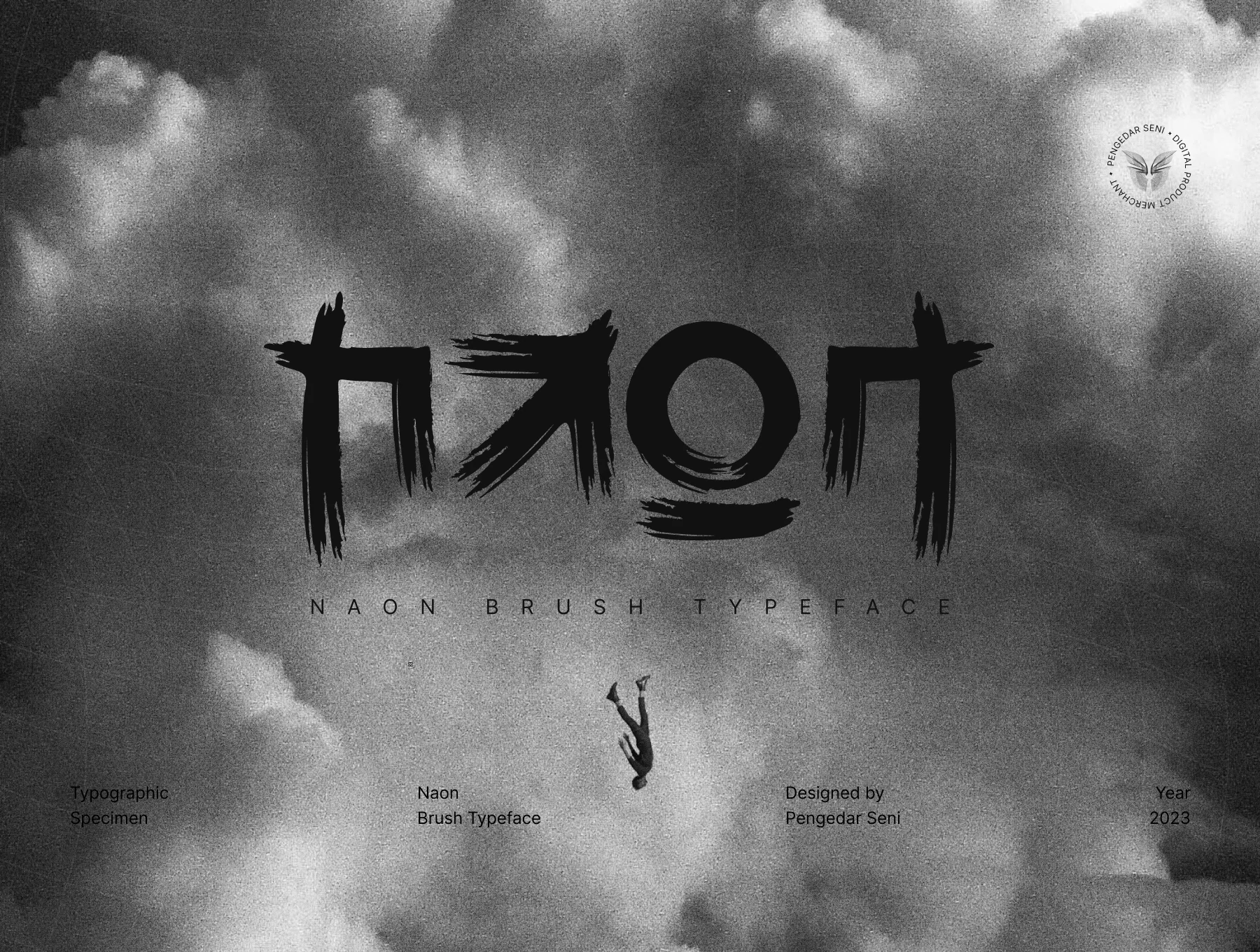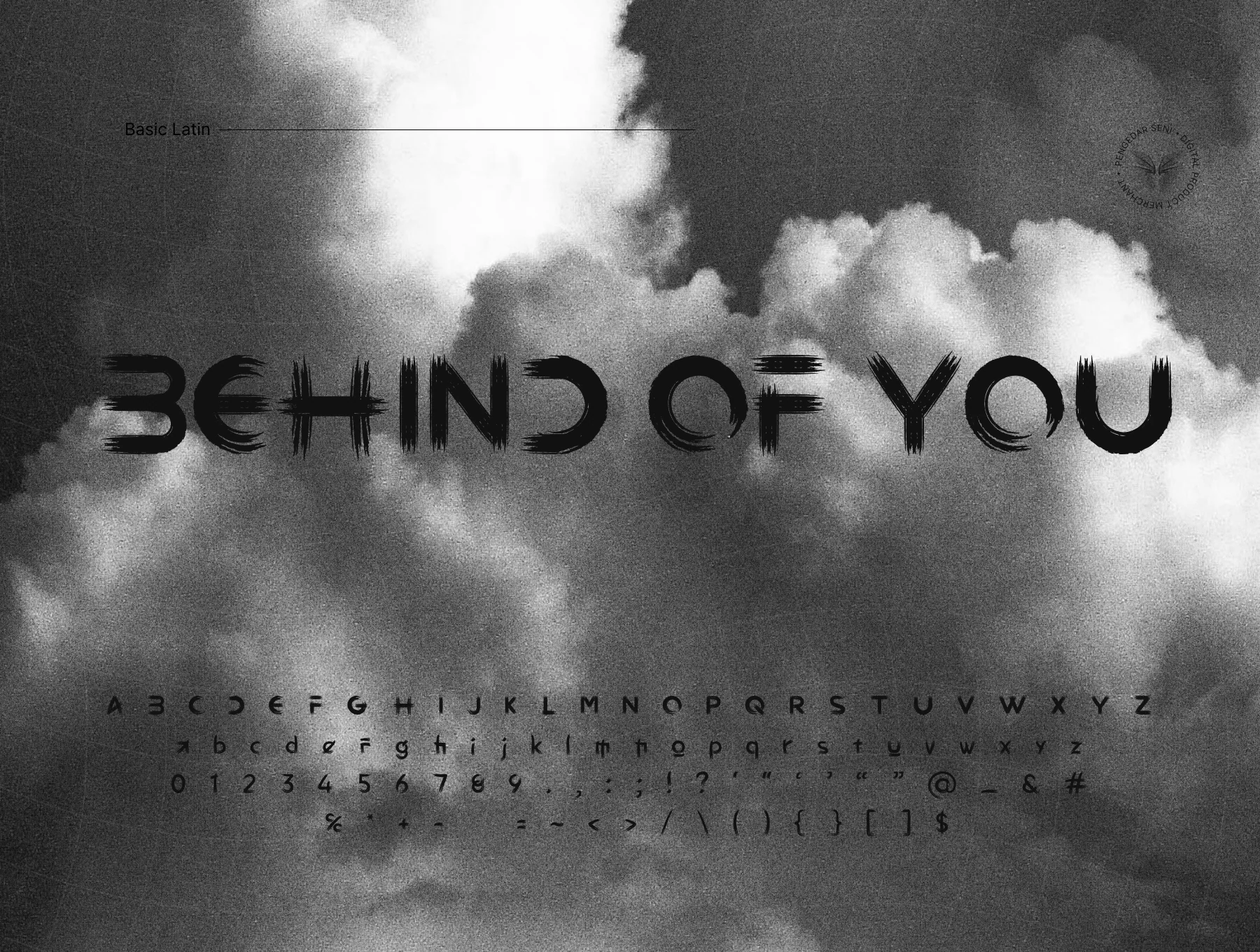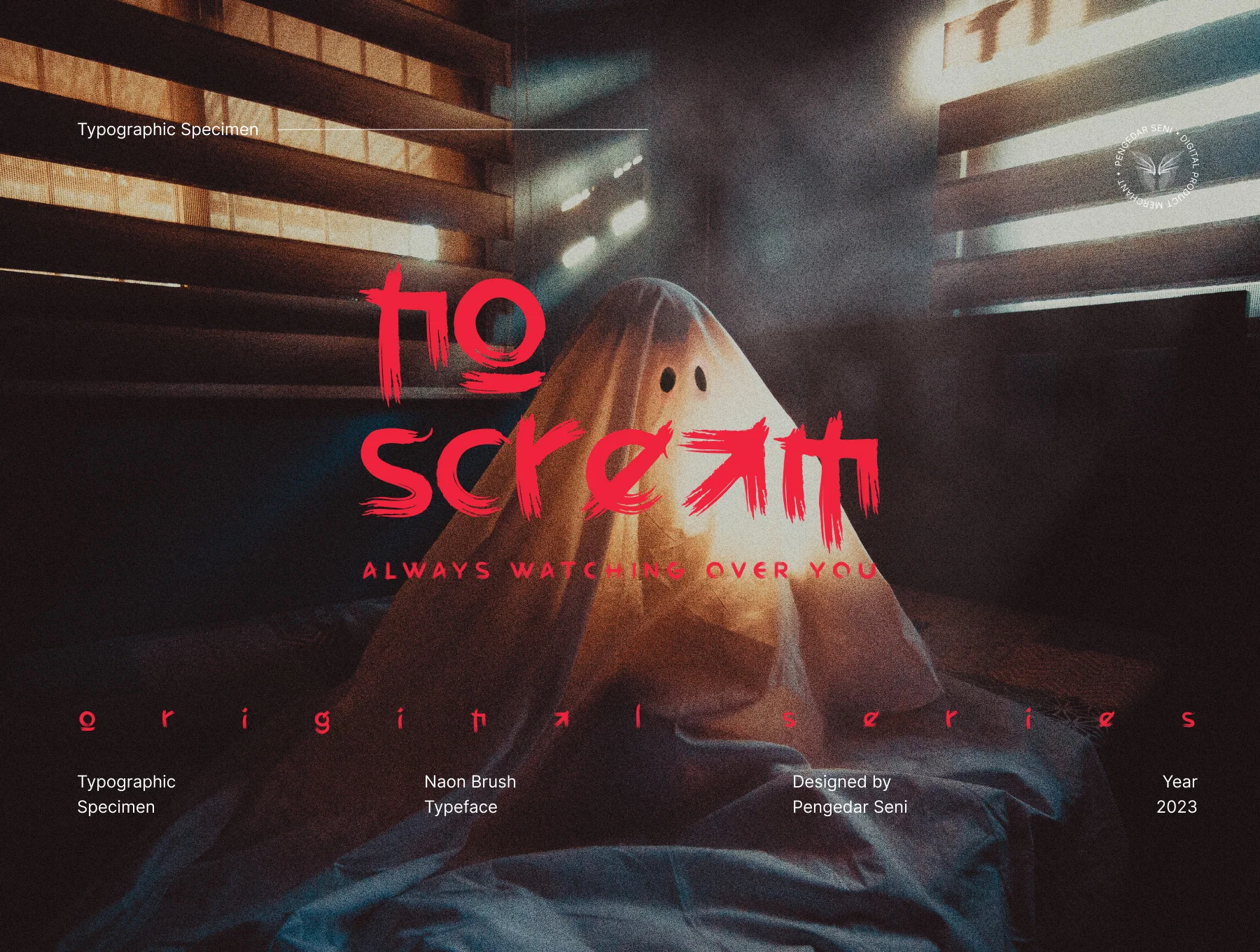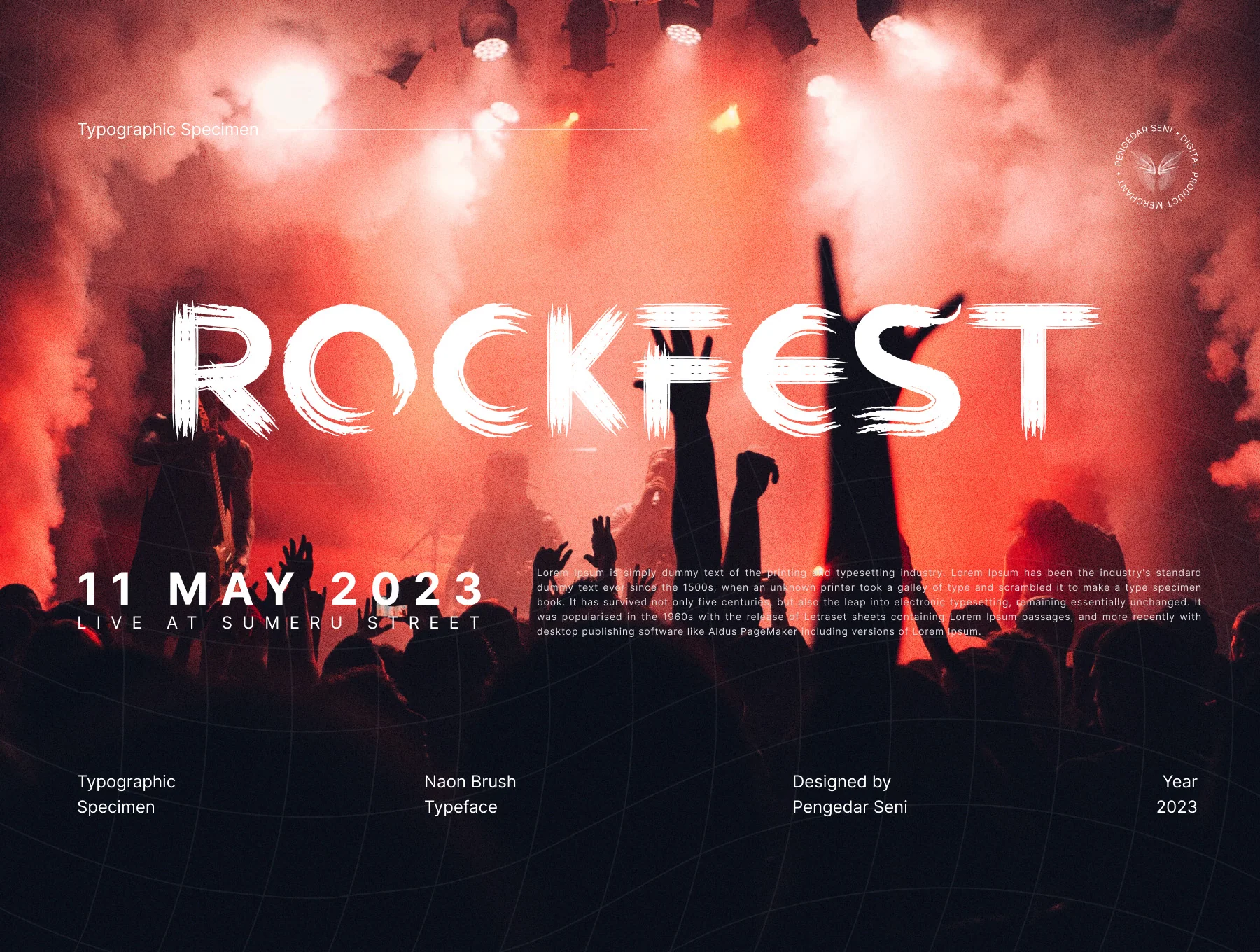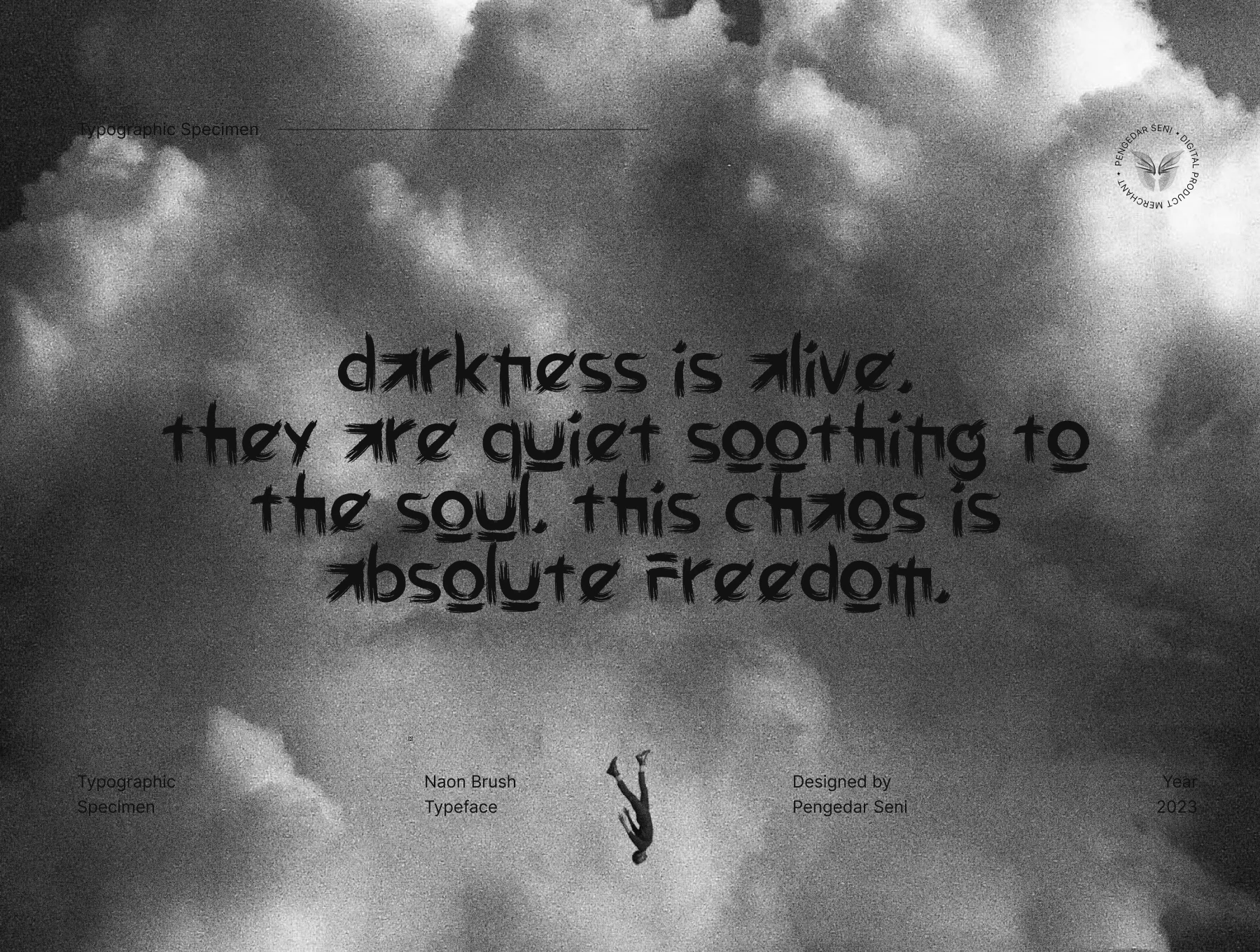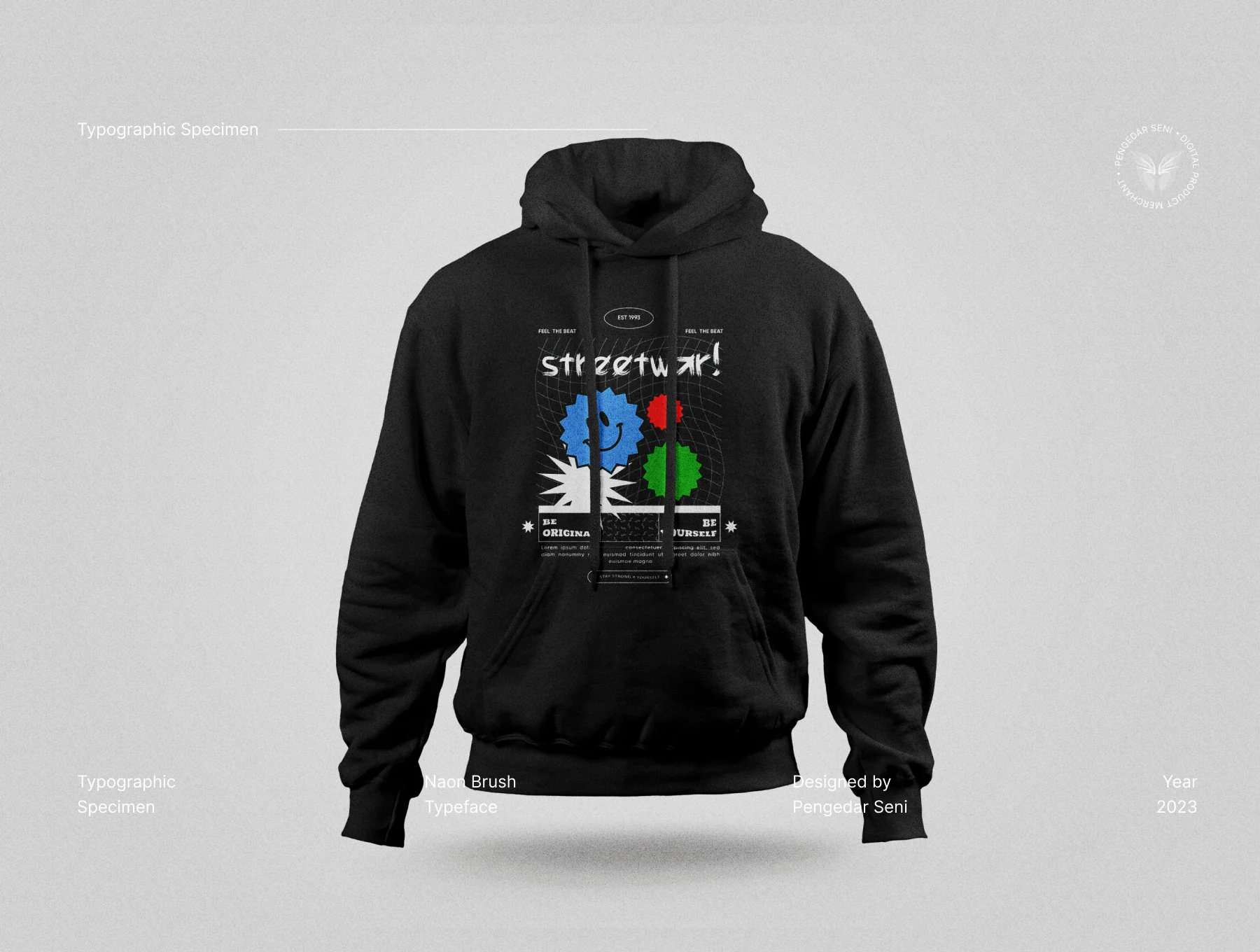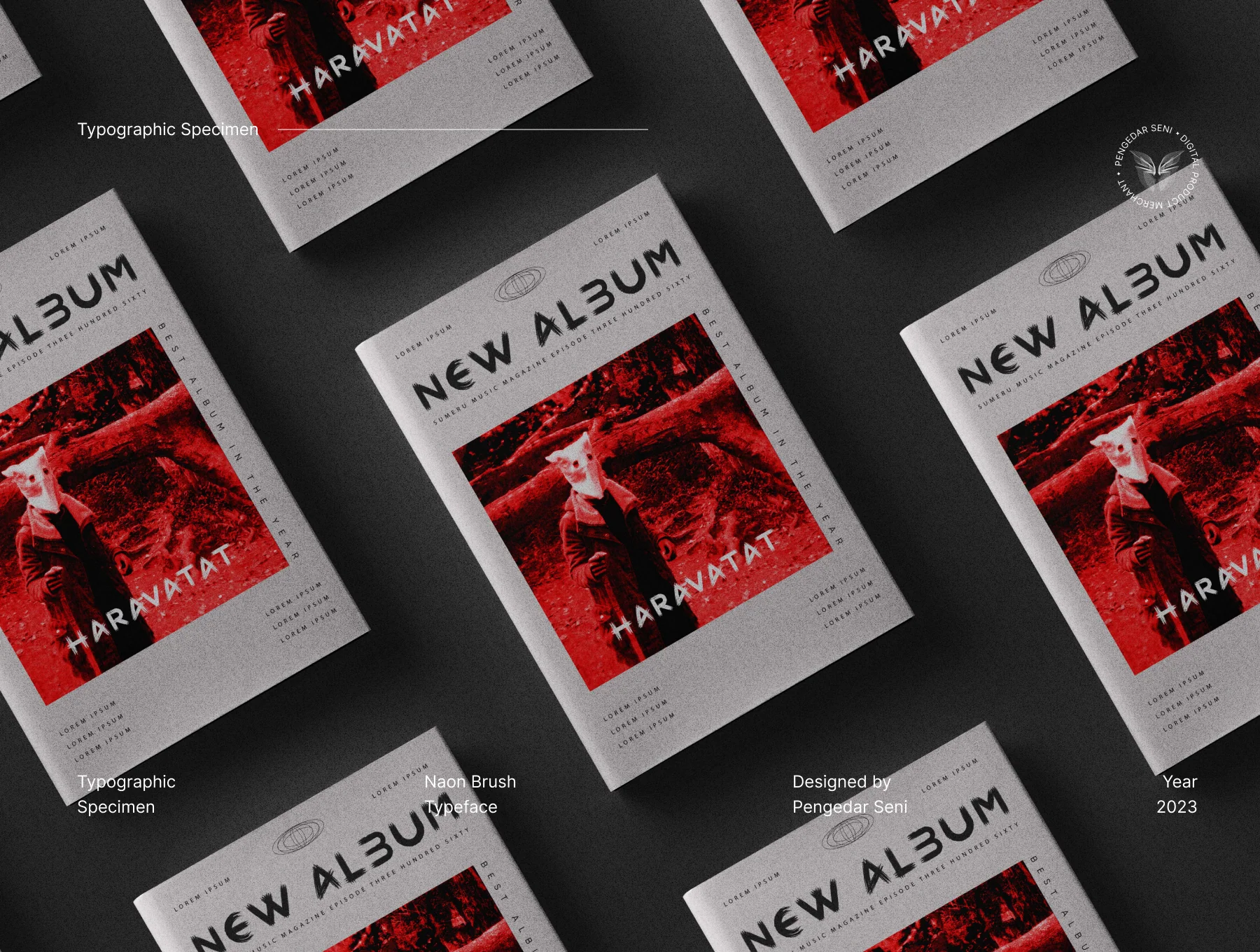
Naon Brush Typeface
A Striking Haunted Brush Font
Brush-style font
Distinctive lettering
Capital and small letters
Naon is a brush-style typeface suited to horror, action, and rock-inspired artwork. It includes 2 font styles, offering distinctive uppercase and lowercase characters that can be mixed freely. Carefully hand-drawn with brush and ink from a broken heart, it works well for many bold, intense design themes.